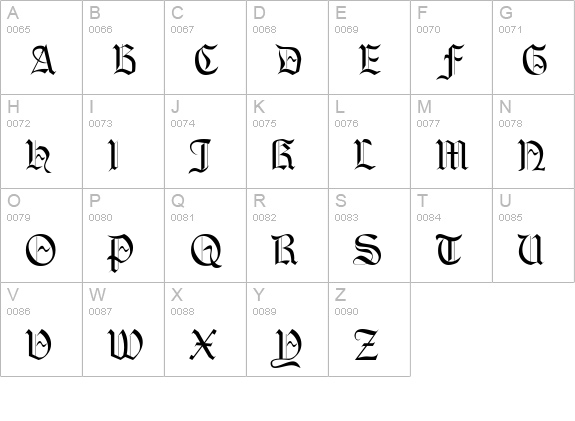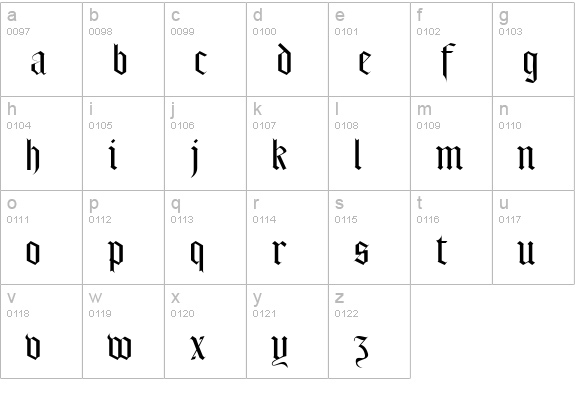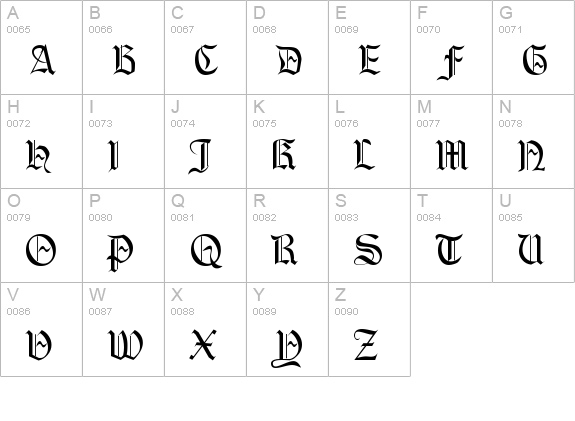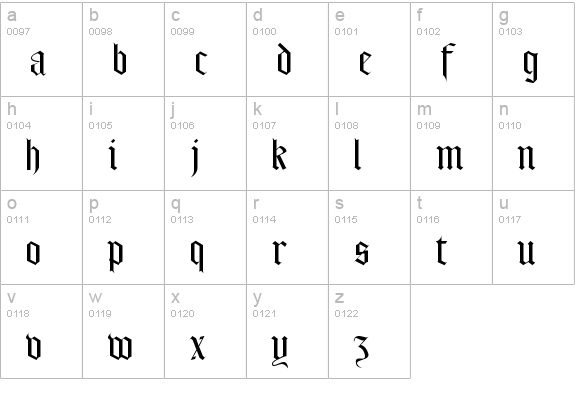
Laudens Font Details
Laudens font is an exquisite and versatile typeface that effortlessly combines elegance with modernity. With its clean lines and graceful curves, this font is perfect for adding a touch of sophistication to any design project. What sets Laudens font apart is not only its stunning aesthetic appeal, but also the fact that it is completely free to use. Yes, that's right - this amazing font is available for download at FontsMarket.com without any cost. So whether you're a professional designer or a casual enthusiast, you can enjoy the beauty of Laudens font without breaking the bank. But don't let its price fool you - Laudens font is of the highest quality. Its meticulously crafted letterforms ensure legibility and readability, making it suitable for various applications, from print materials to digital designs. Whether you're designing a logo, creating a website, or crafting an invitation, Laudens font will add a touch of elegance and sophistication to your work. The versatility of Laudens font is another standout feature. It comes in a range of weights and styles, allowing you to choose the perfect variation to suit your specific needs. Whether you prefer a bold and impactful look or a more delicate and refined style, Laudens font has got you covered. So why wait? Discover the beauty and versatility of Laudens font today. Download it for free at FontsMarket.com and elevate your designs to a whole new level of elegance and sophistication. With Laudens font, you can create stunning visuals that will captivate your audience and leave a lasting impression.